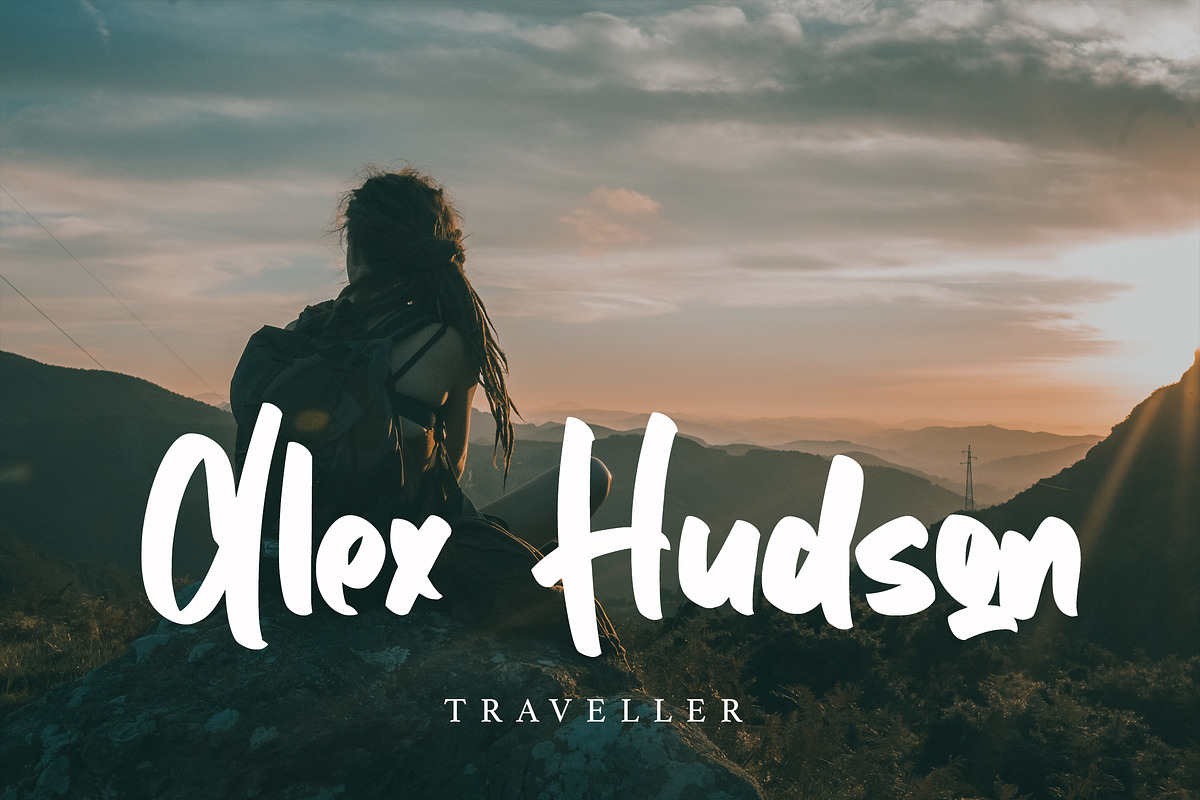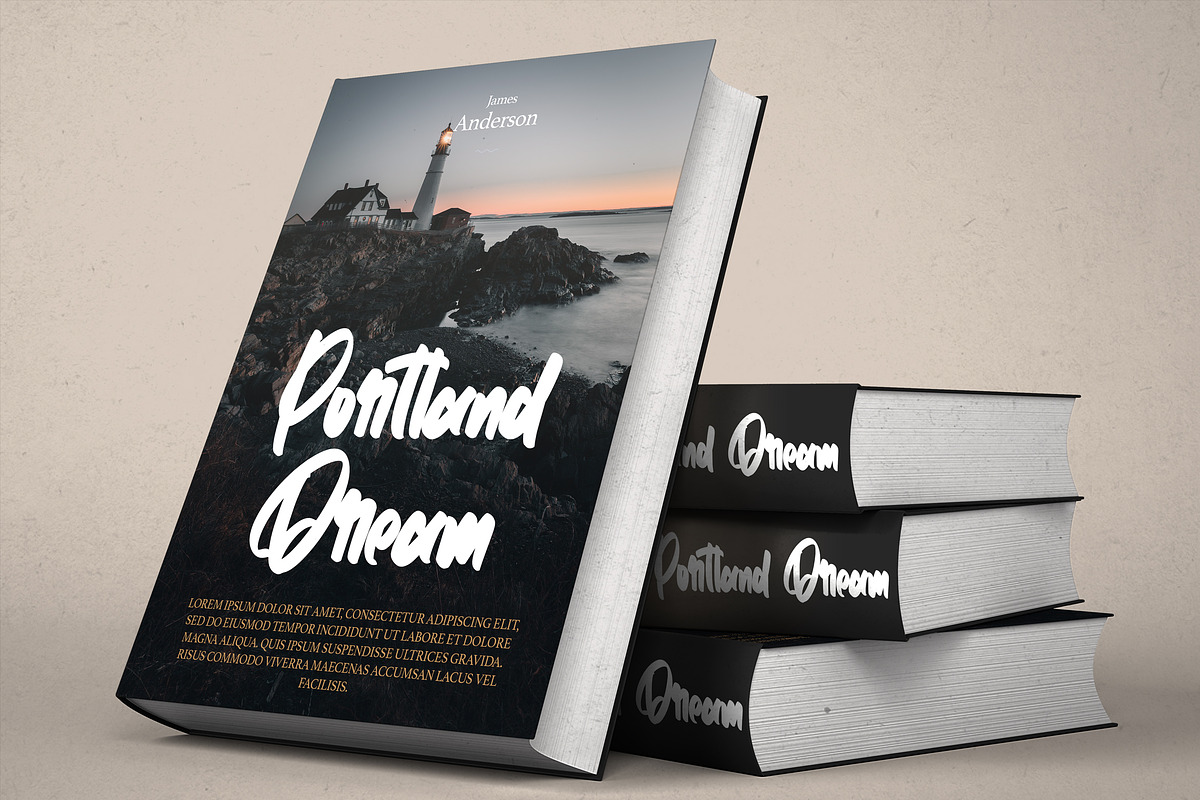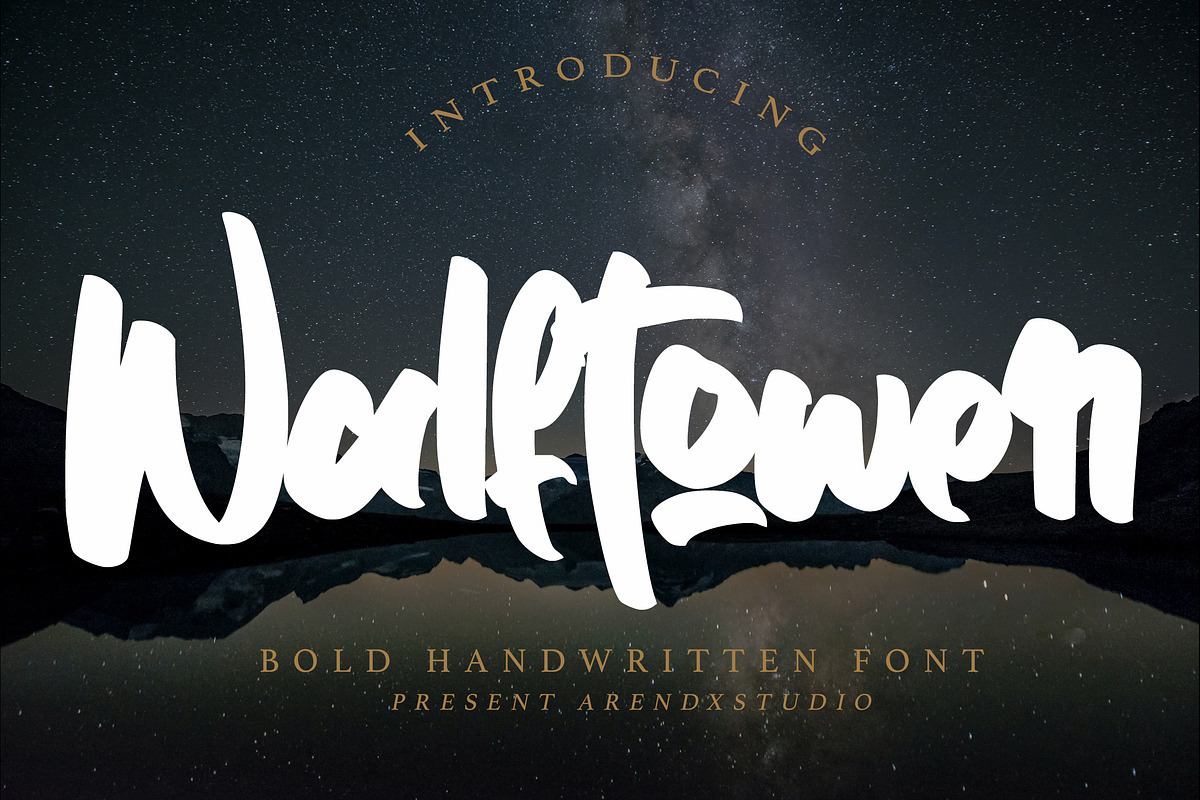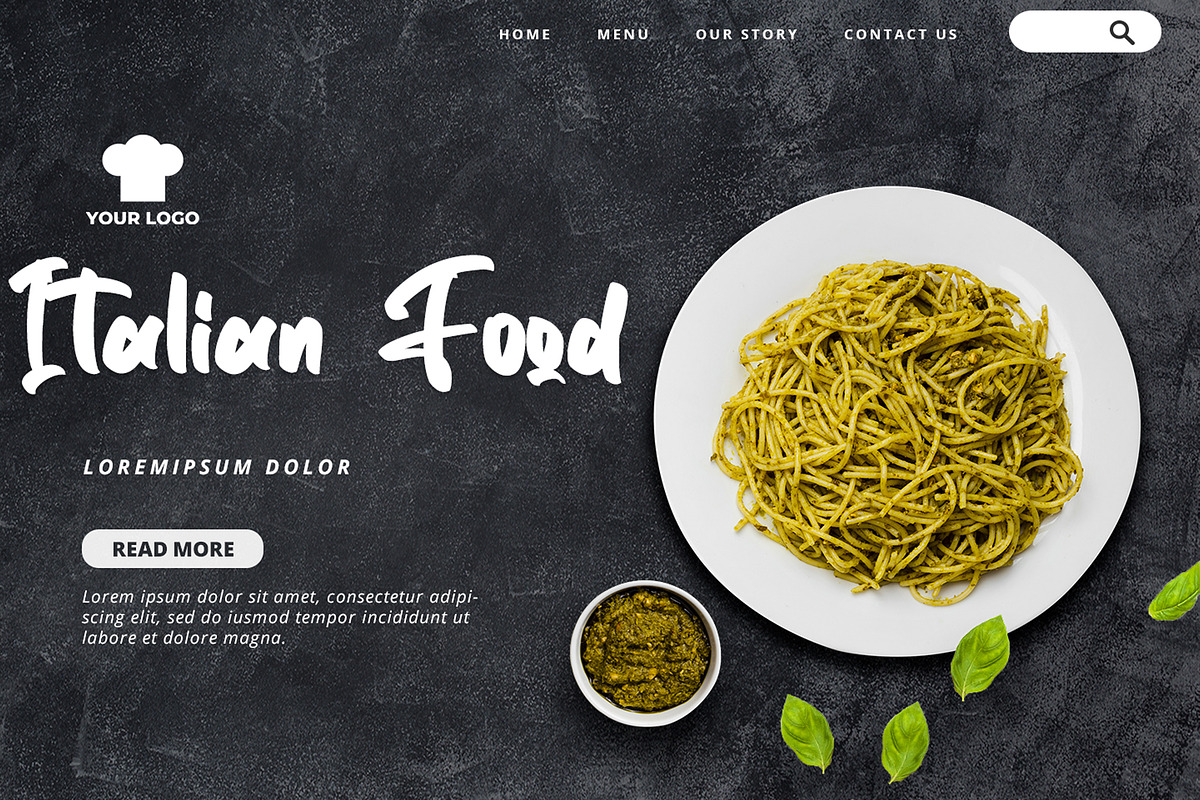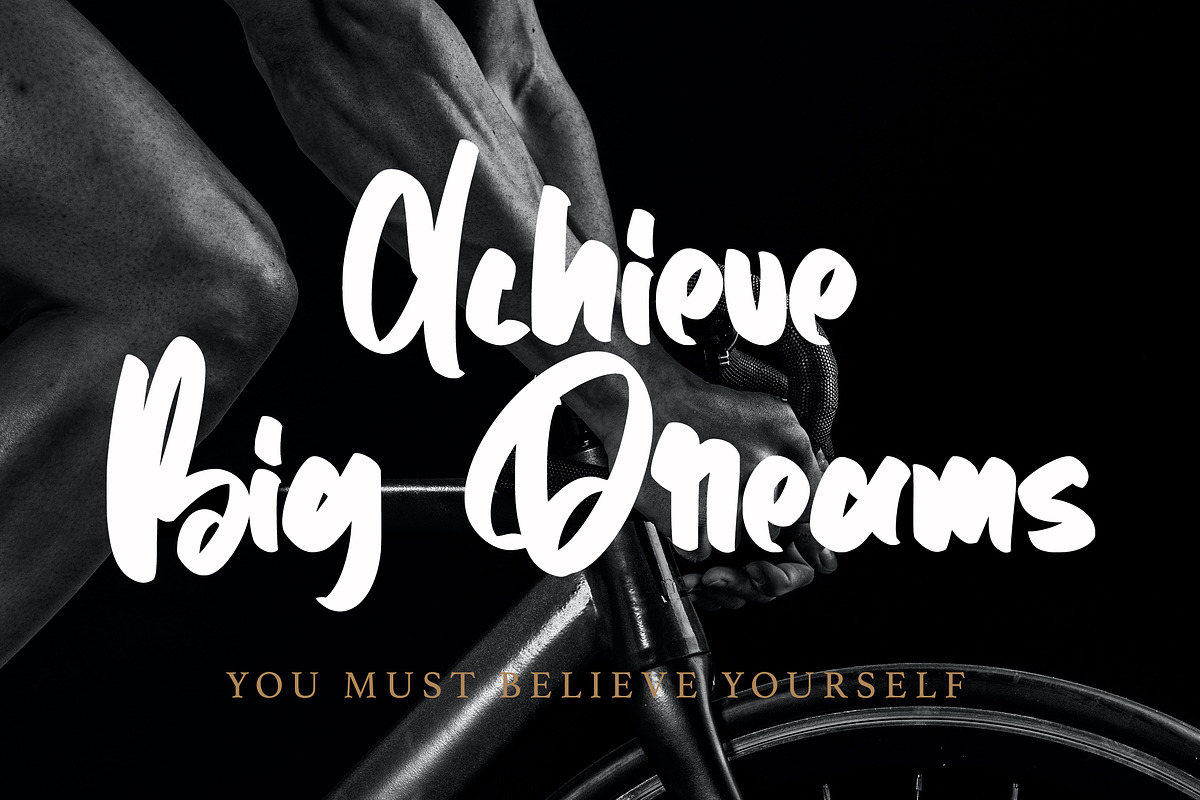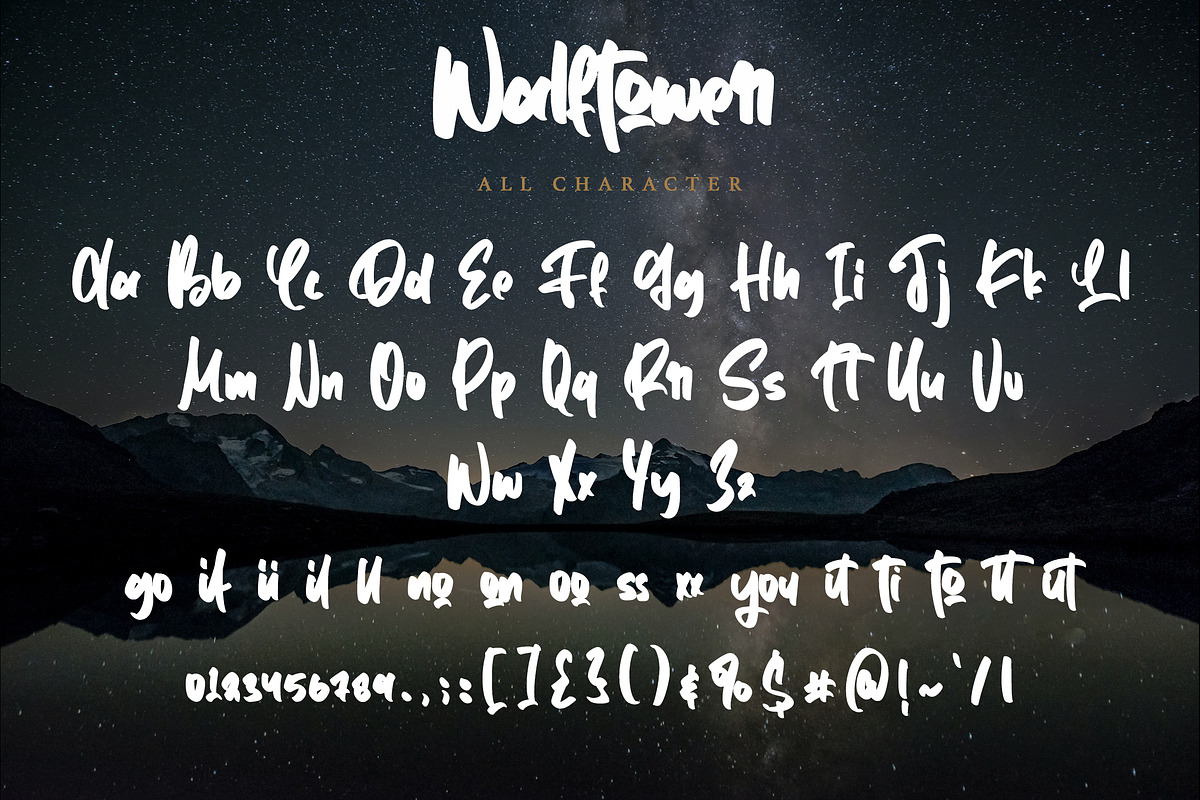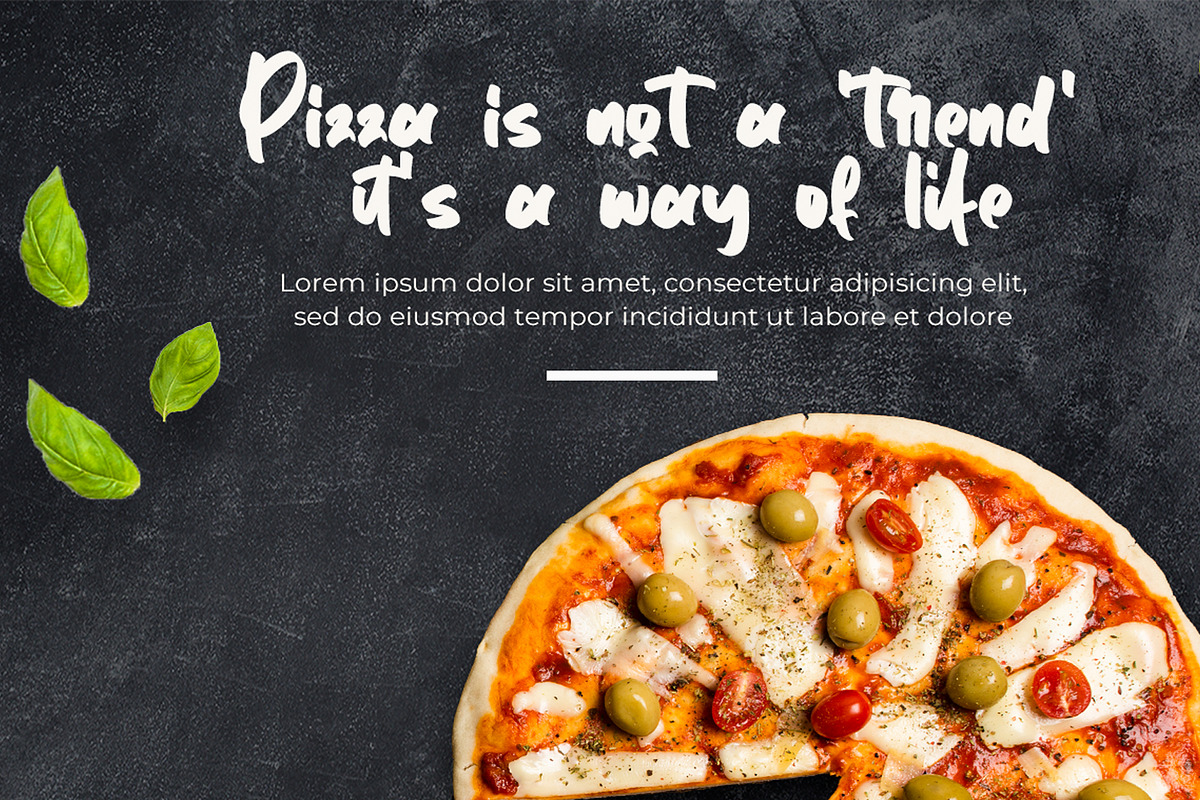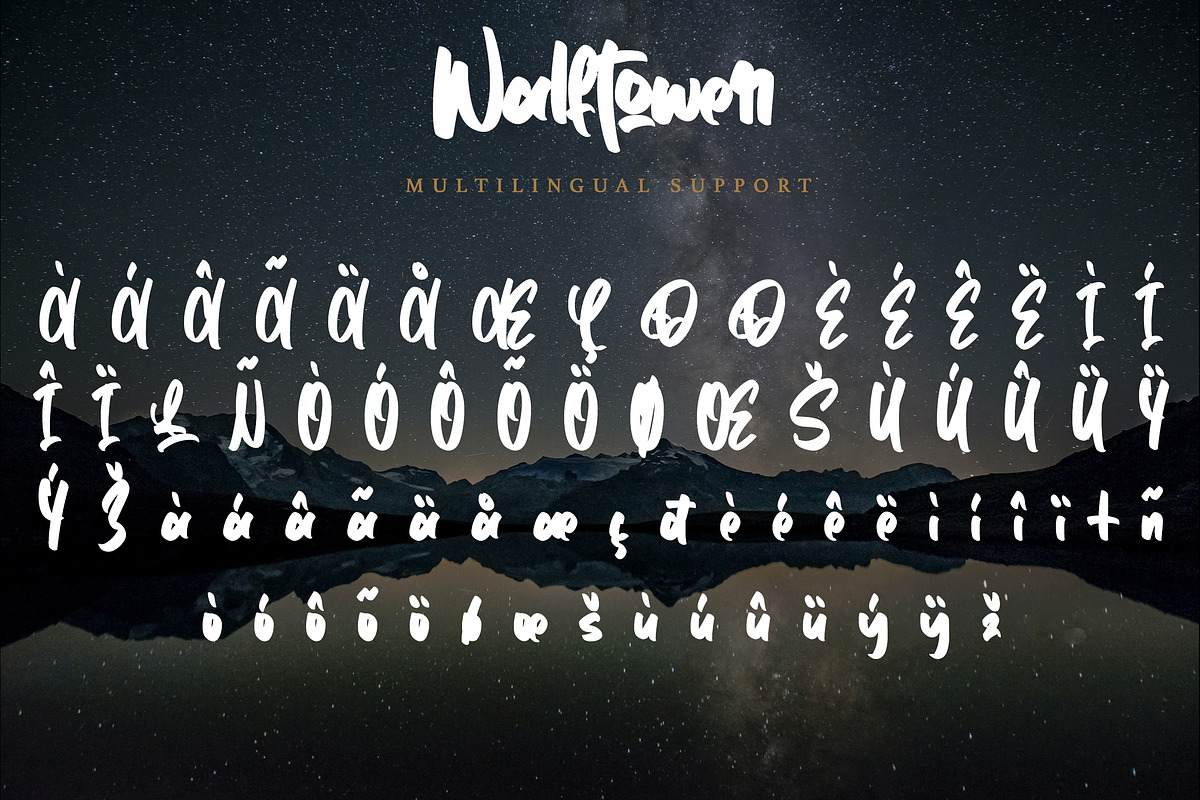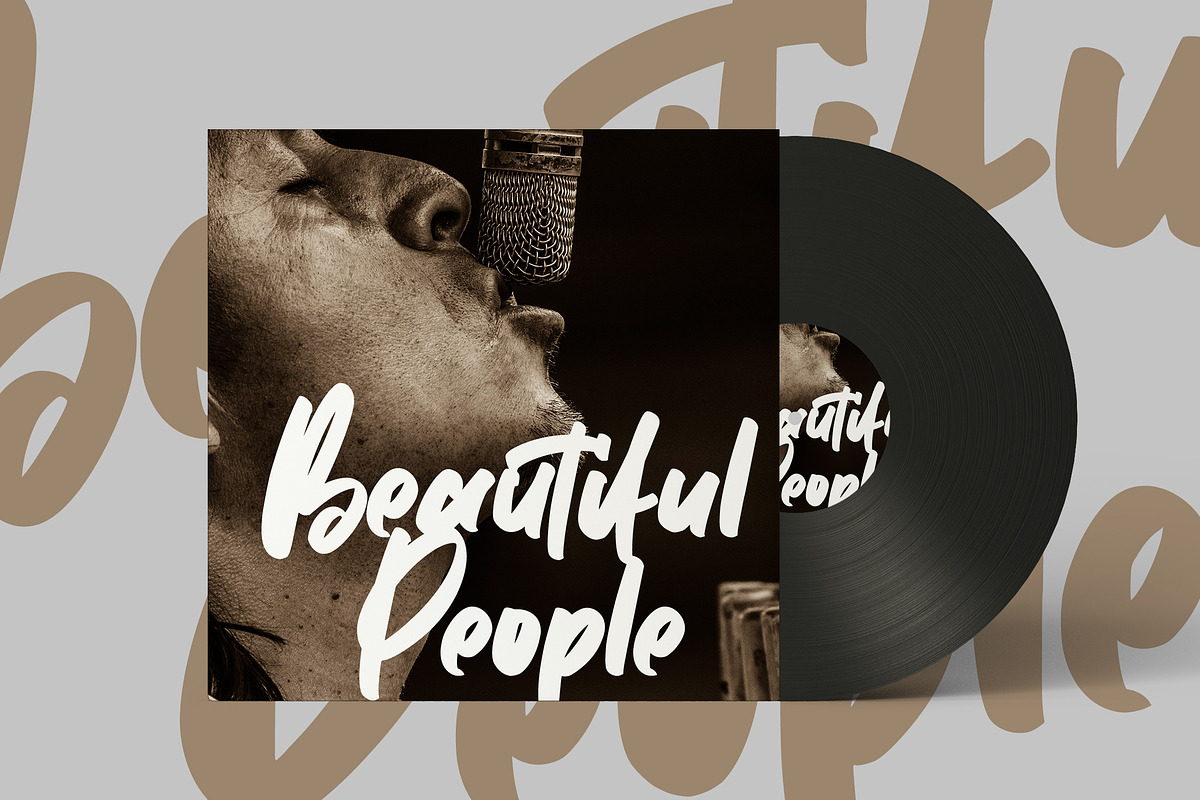
Walftower - Bold Handwritten Font
Walftower - Bold Handwritten Font with its distinctive character that can be easily implemented in your various design projects . Walftowert came with opentype features such stylistic alternates, stylistic sets & ligatures good for logotype, poster, badge, book cover, tshirt design, packaging and any more.
Features : • Character Set A-Z • Numerals & Punctuations (OpenType Standard) • Accents (Multilingual characters) • Ligature